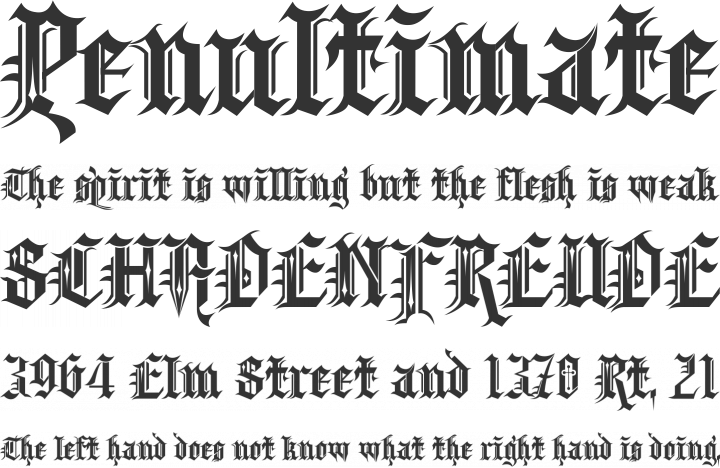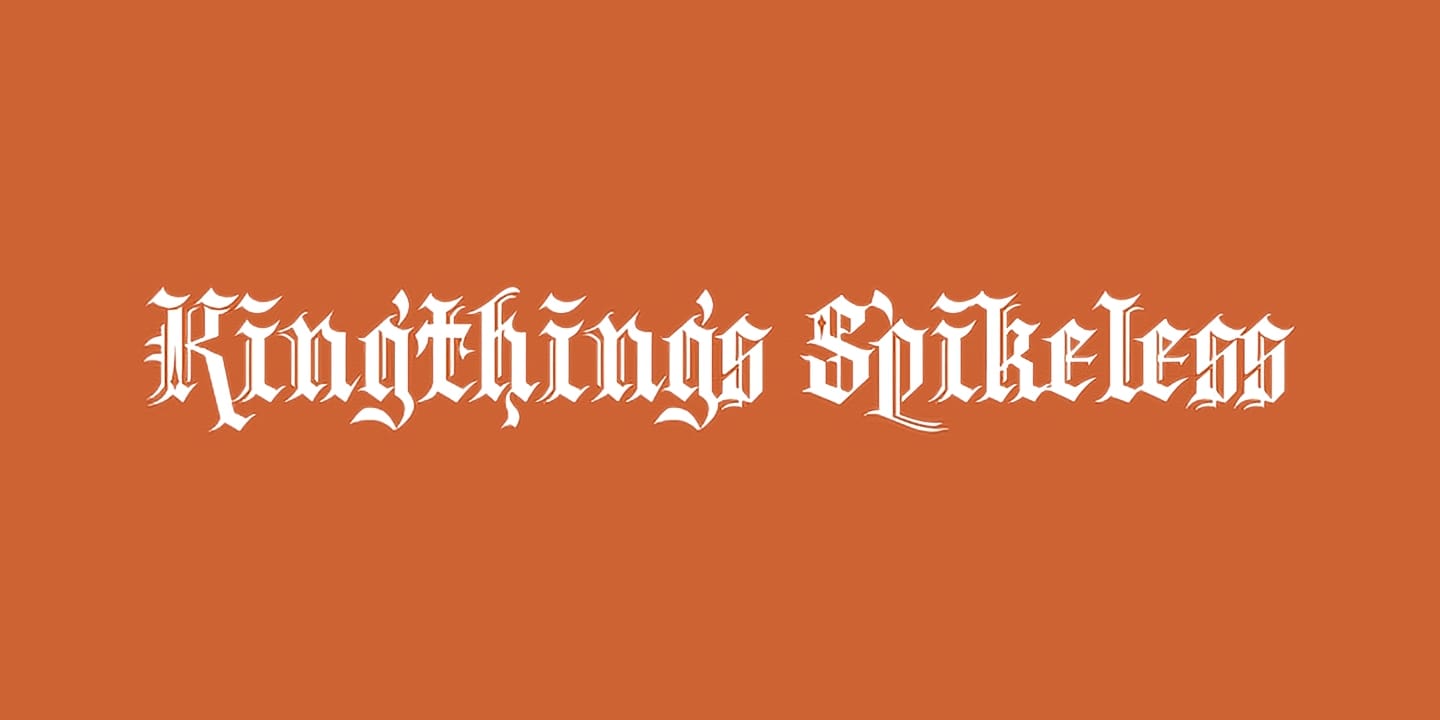
If you are on the lookout for a unique font that combines elegance with a touch of history, then Kingthings Spikeless might be what you need. This font family captures the essence of Old English style while offering a modern twist. Its decorative elements add creativity and flair to any project.
Designed with versatility in mind, Kingthings Spikeless is suitable for a variety of applications, whether for print, online content, or branding. The intricate details of the letters can make your headlines stand out and enhance the overall aesthetic of your designs.
In summary, Kingthings Spikeless is a decorative font that balances tradition and modernity. If you want to make a statement, consider adding this font to your collection. It could be the perfect fit for your next creative endeavor.